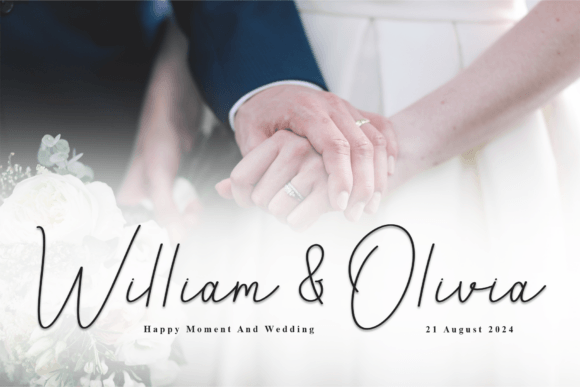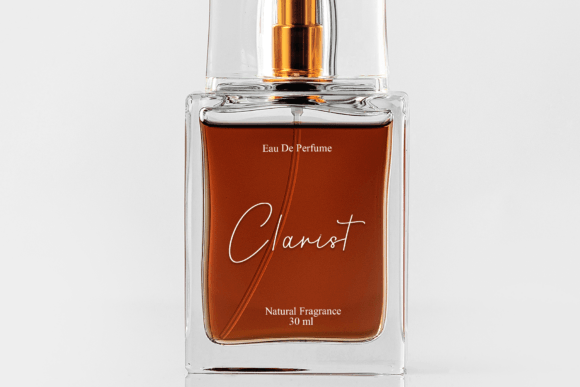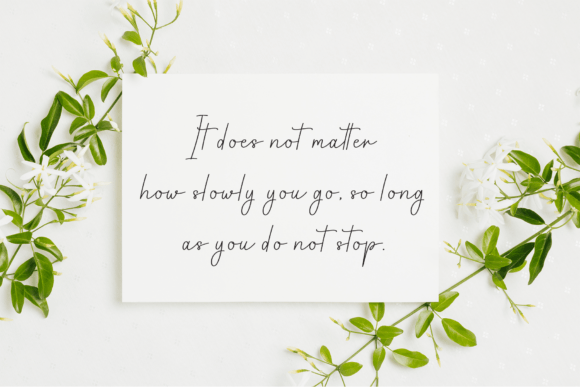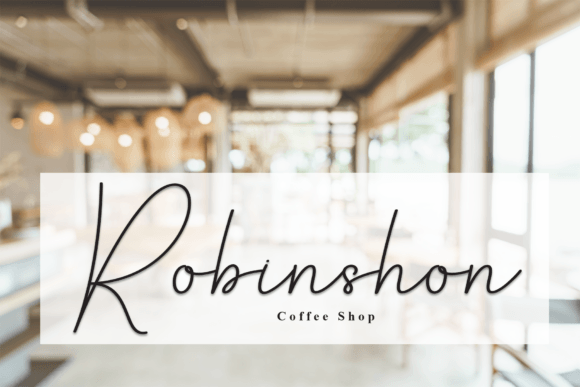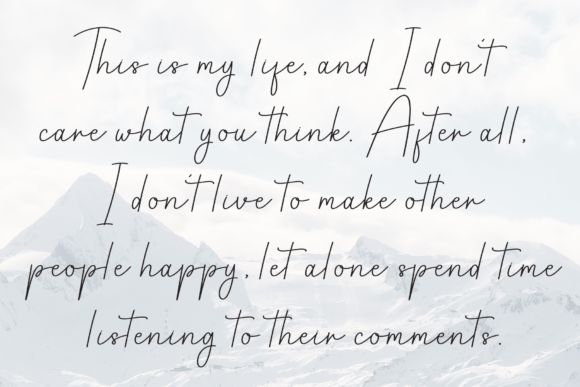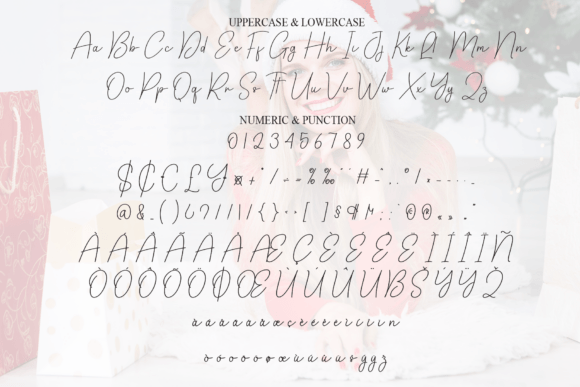
The Magic of Handwritten Letters: A Journey with Beauty Santa Font
Have you ever received a handwritten letter or card that made your heart skip a beat? The imperfections and unique flair of a handwritten touch can make even the simplest message feel special and meaningful. As designers, we know that the right font can evoke emotions and create a lasting impression. That’s why we’re excited to share with you the beauty of Beauty Santa Font, a delicate, thin font that captures the essence of handwritten elegance.
With its soft and refined style, Beauty Santa Font is perfect for adding a personal touch to your notes, cards, or holiday decorations. Whether you’re looking to create a warm and inviting atmosphere or simply want to add a touch of whimsy to your designs, Beauty Santa Font is a valuable addition to any designer’s toolkit. Its versatility and charm make it an ideal choice for a wide range of creative projects.
Beauty Santa Font Key Features
- Font Family: Beauty Santa Font is a unique, hand-drawn font designed to evoke a sense of whimsy and holiday cheer. It is available in multiple font families, including regular, bold, and italic.
- Character Set: The font includes a comprehensive character set, including uppercase and lowercase letters, numbers, punctuation, and special characters.
- Unique Characteristics: The font features intricate, hand-drawn designs and ornaments that add a touch of elegance and sophistication to any project. The unique character set and ornaments make it an ideal choice for holiday-themed designs, invitations, and greeting cards.
Beauty Santa Font Review
When I first laid eyes on the Beauty Santa Font, I was immediately drawn to its whimsical and festive vibe. ✨ The font’s playful use of curls and flourishes makes it perfect for holiday-themed designs, from Christmas cards to gift tags.
One of the things that works well about this font is its versatility. ✨ It’s available in a range of weights, from light to bold, which allows designers to create a variety of moods and styles. The font also includes a range of characters, including uppercase and lowercase letters, numbers, and punctuation.
However, there are a few limitations to consider. ⚠️ The font’s aesthetic may be too playful for some designs, and the curls and flourishes may not be suitable for all types of content. Additionally, the font may not be as easily legible at smaller font sizes, which could be a concern for designers who need to use it in smaller contexts.
Overall, I think the Beauty Santa Font is a great choice for designers who are looking for a festive and playful font to add some holiday cheer to their designs. With its versatility and range of weights, it’s a great option for a variety of design projects.
- Playful and festive aesthetic
- Available in a range of weights
- Includes a range of characters, including uppercase and lowercase letters, numbers, and punctuation
- May not be suitable for all types of content
- May not be as easily legible at smaller font sizes
The Beauty Santa Font is perfect for creating festive and fun designs for holiday-themed projects, such as:
- Christmas cards and invitations
- Holiday party flyers and brochures
- New year’s Eve decorations and graphics
What font sizes and styles are available in the Beauty Santa Font?
The Beauty Santa Font includes a range of font sizes and styles, including regular, bold, italic, and bold italic. The font is designed to be highly legible at various sizes, making it suitable for use in a wide range of design applications, from small text to large headings.